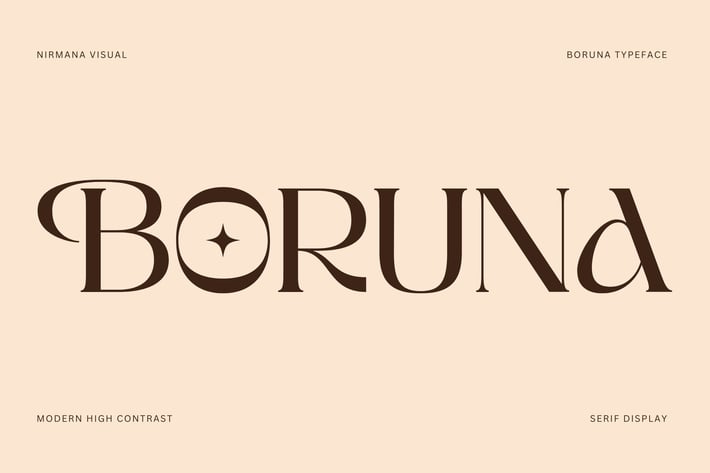
Boruna - Logo Font
Boruna, Serif Display Typeface.
Boruna offers beautiful typographic harmony for a diversity of design projects, including logos & branding, social media posts, advertisements & product designs.